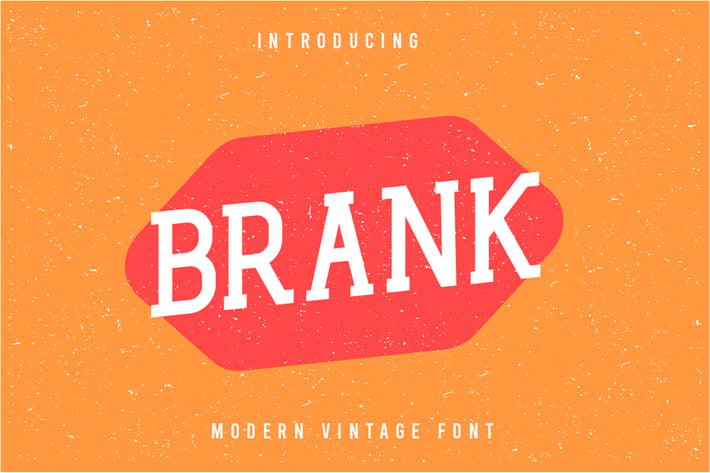
Brank Retro Font
Brank is a vintage reto font It has both modern and retro look - clear, modern and fun. Helps to create layout design in 60s or 70s design projects.
Unique letterforms